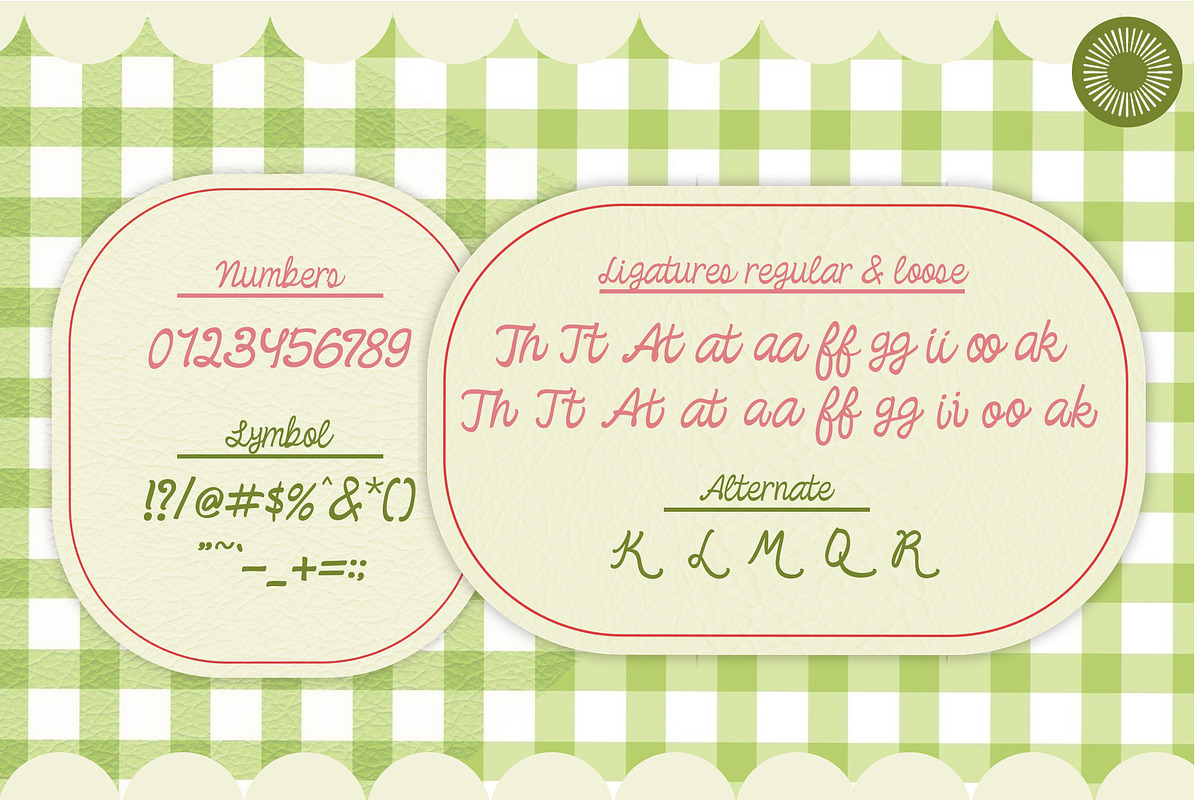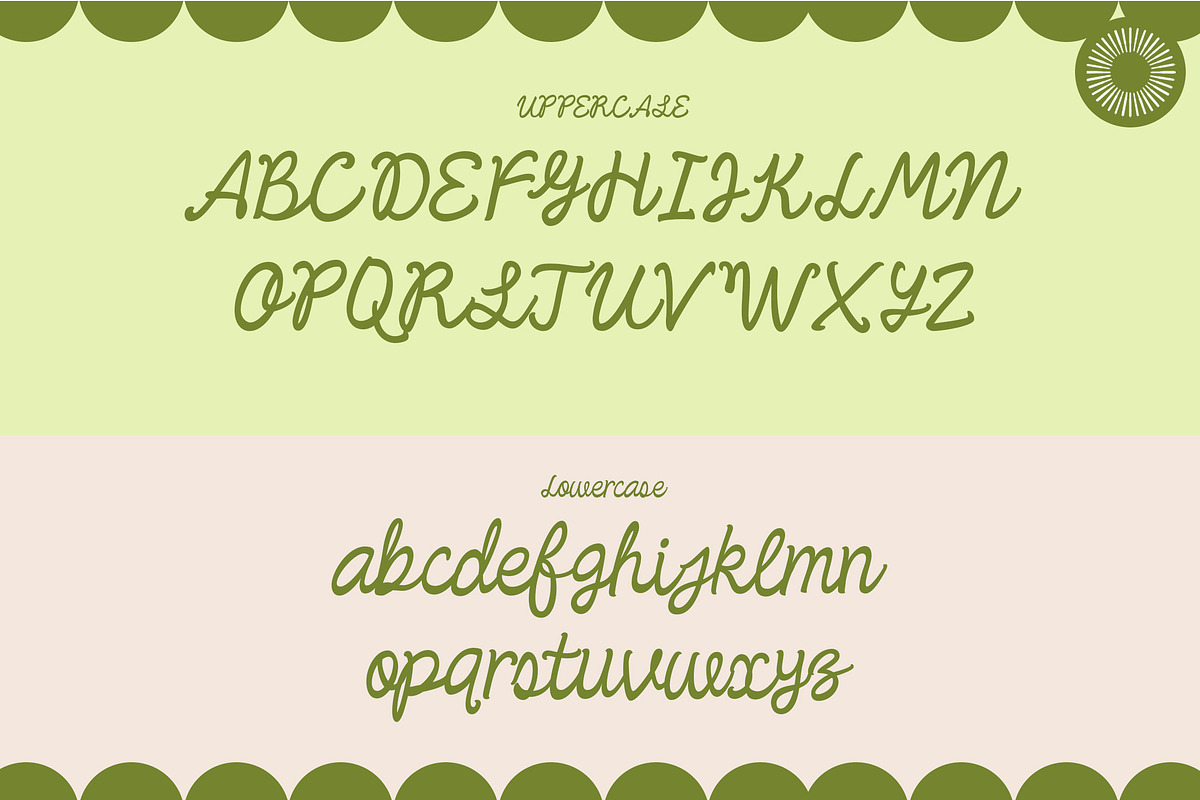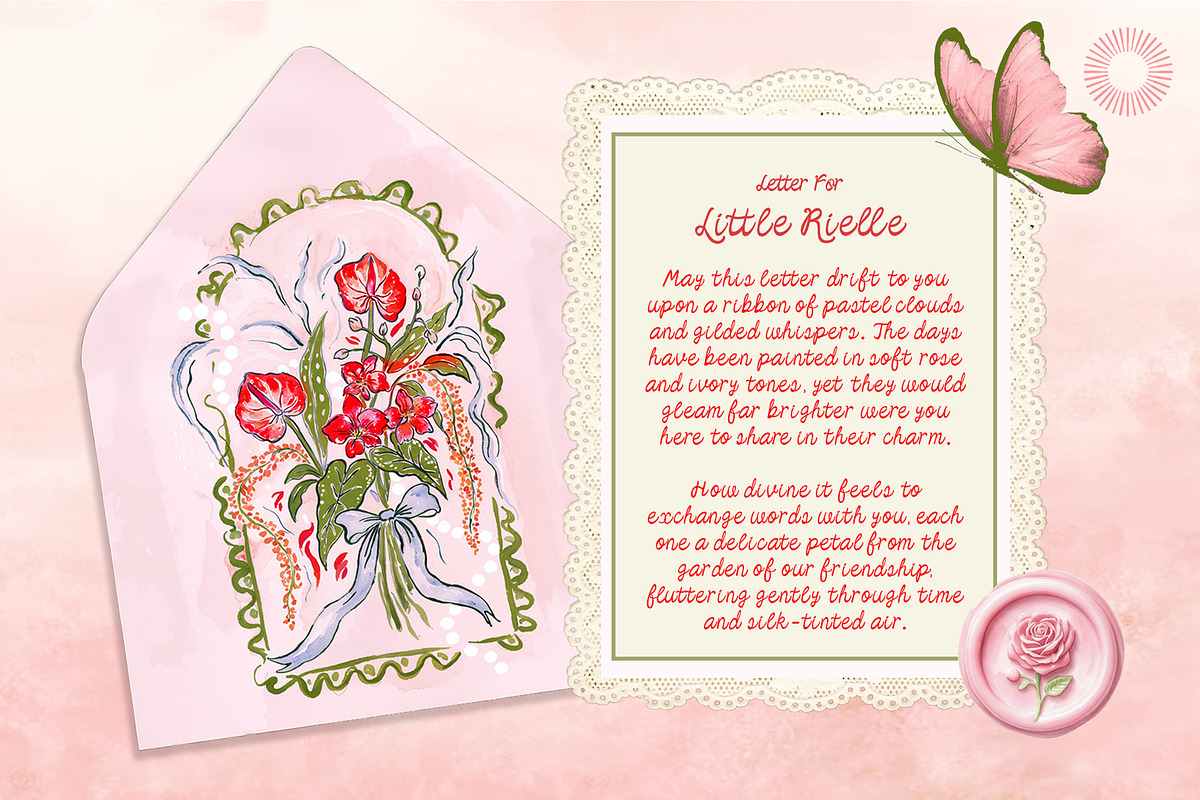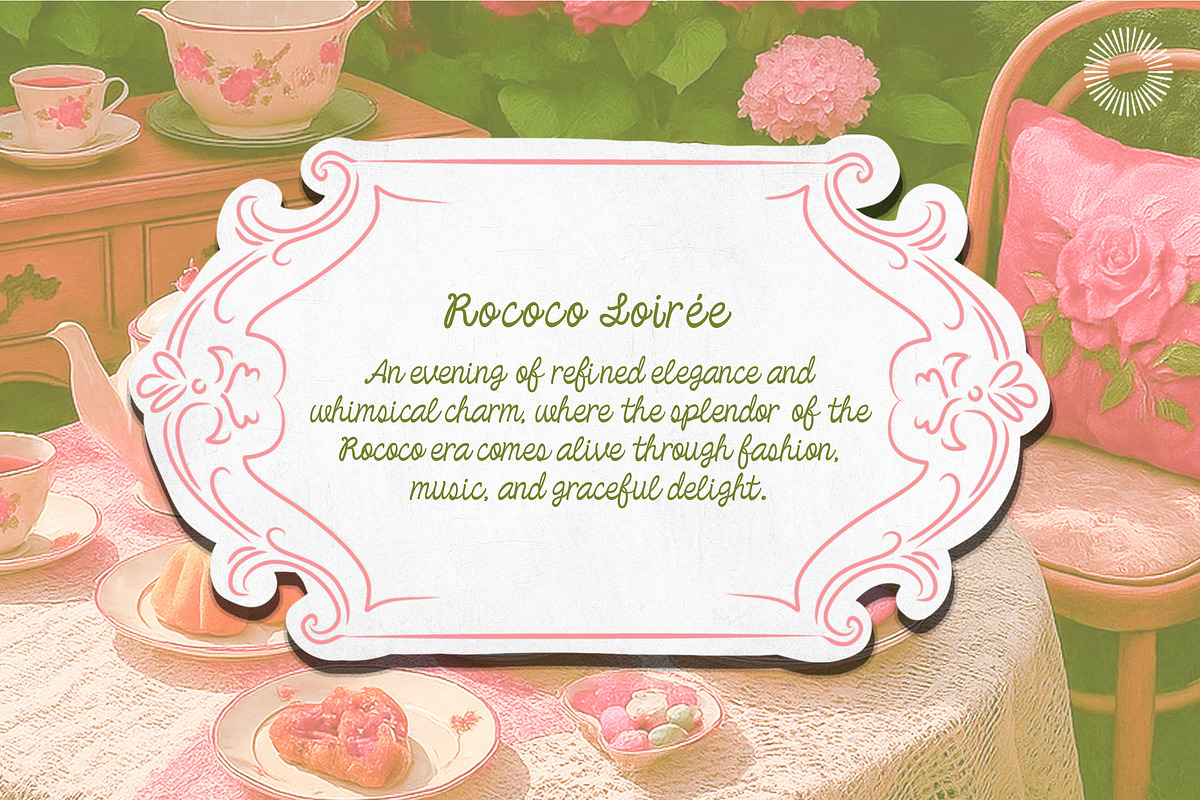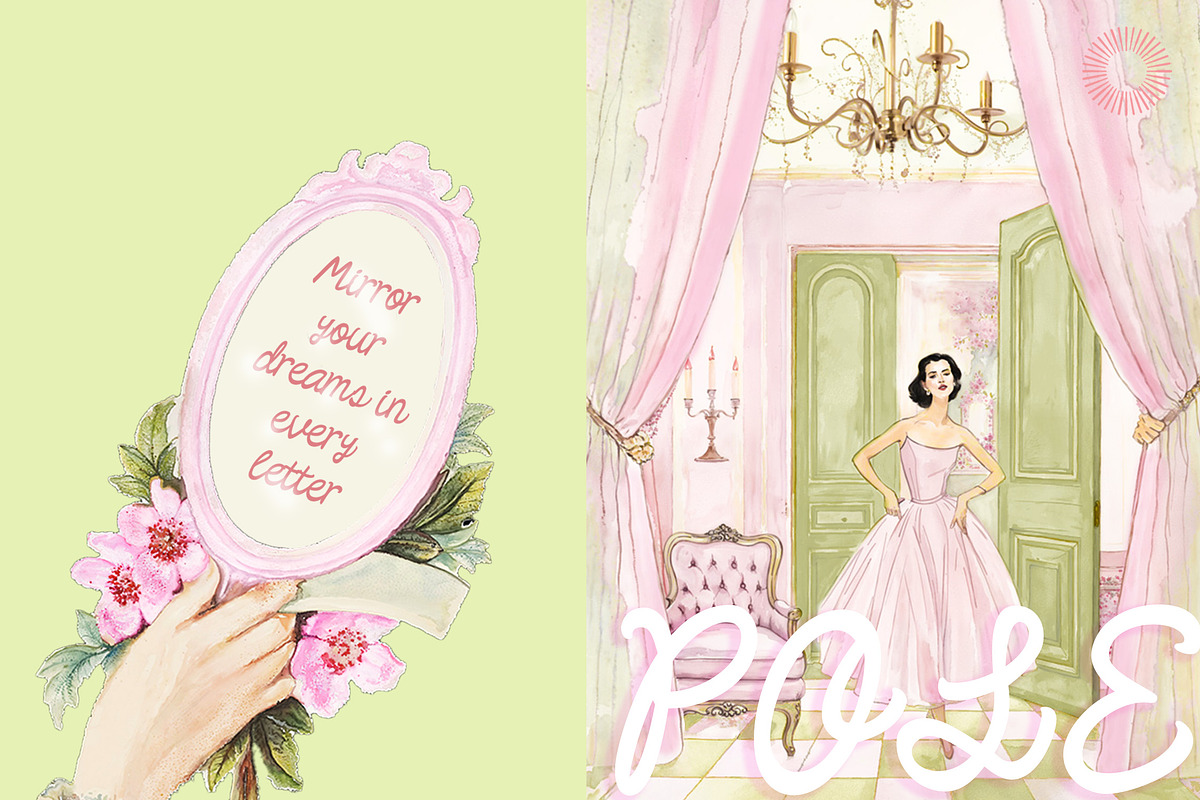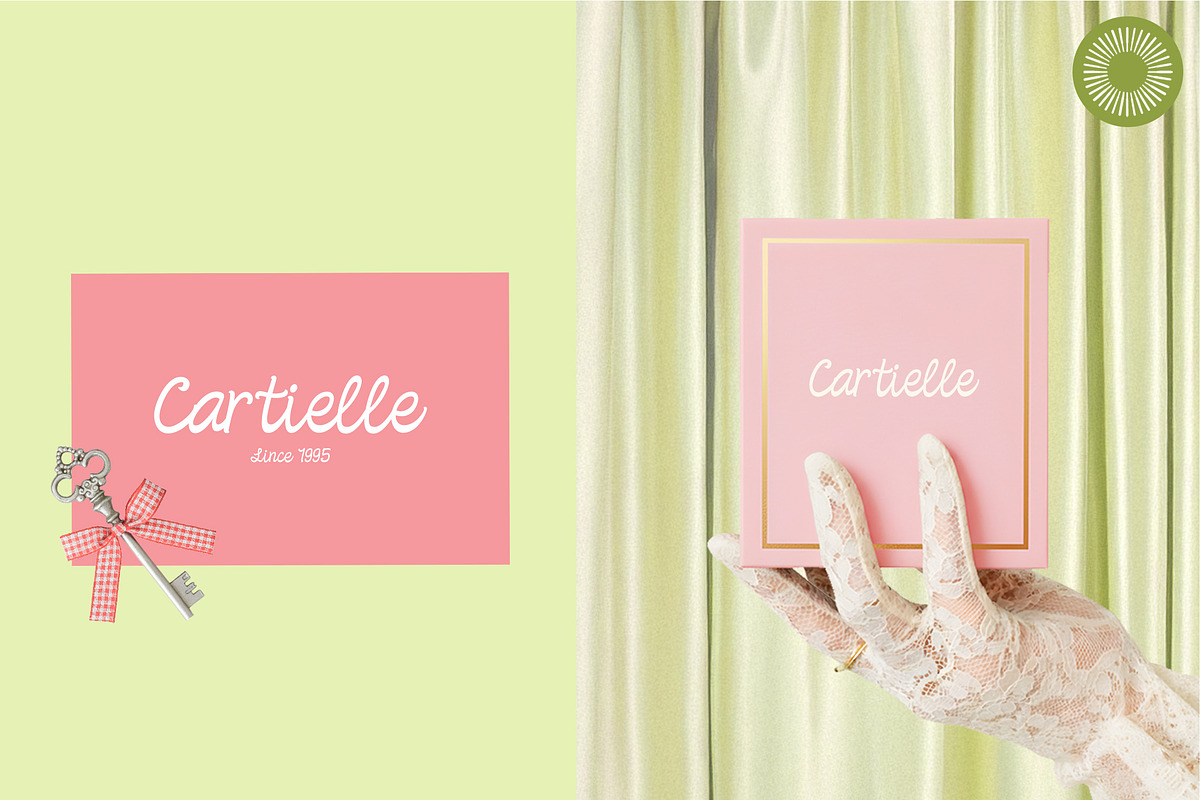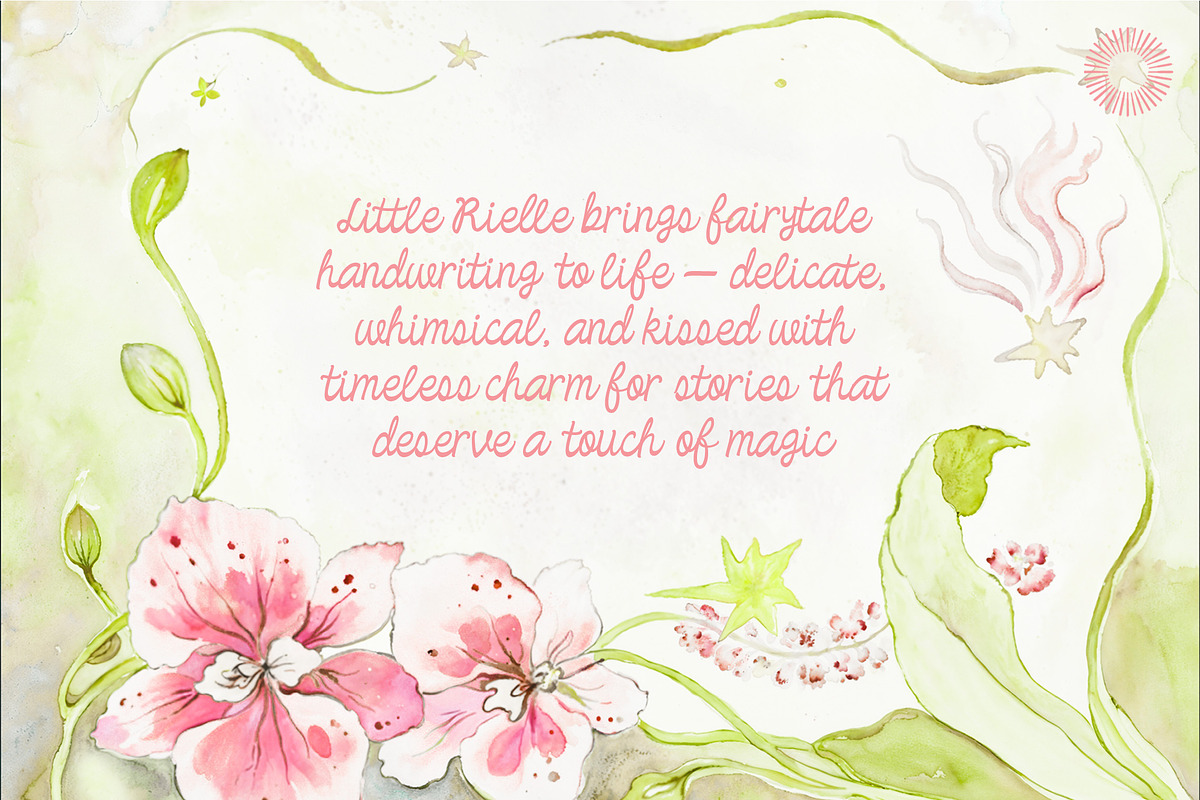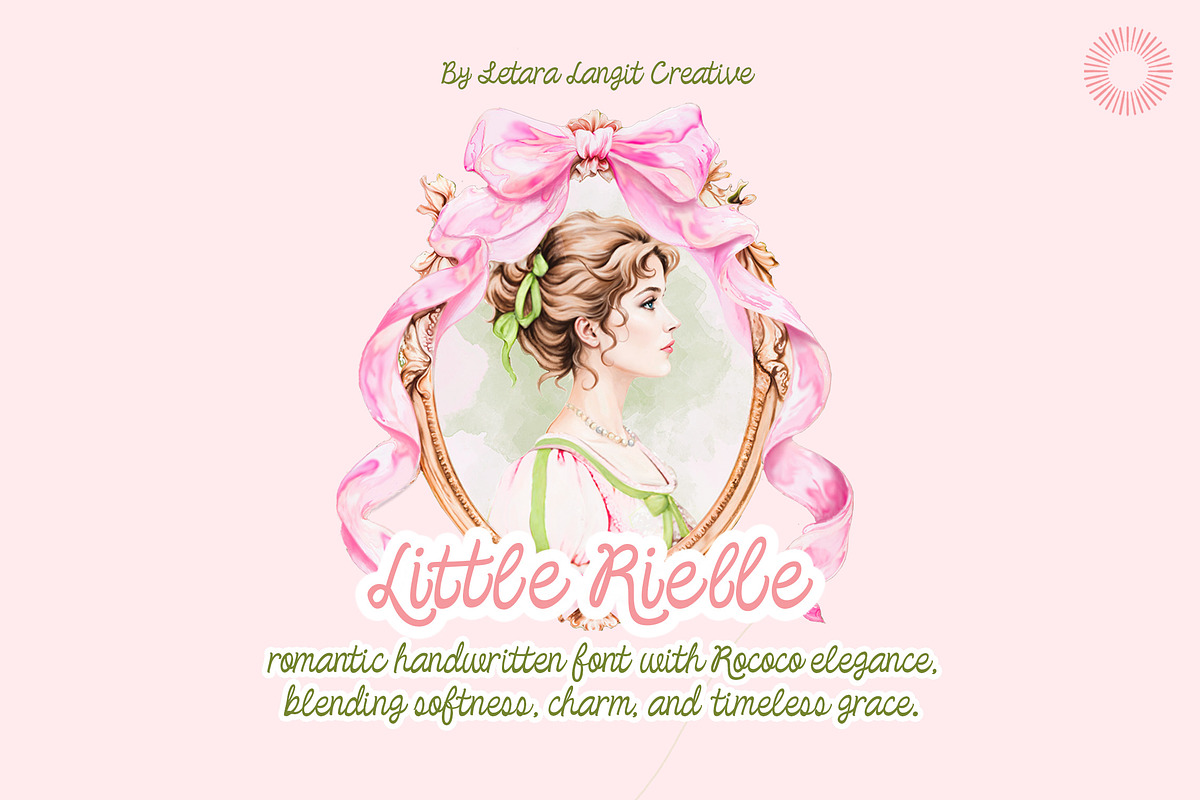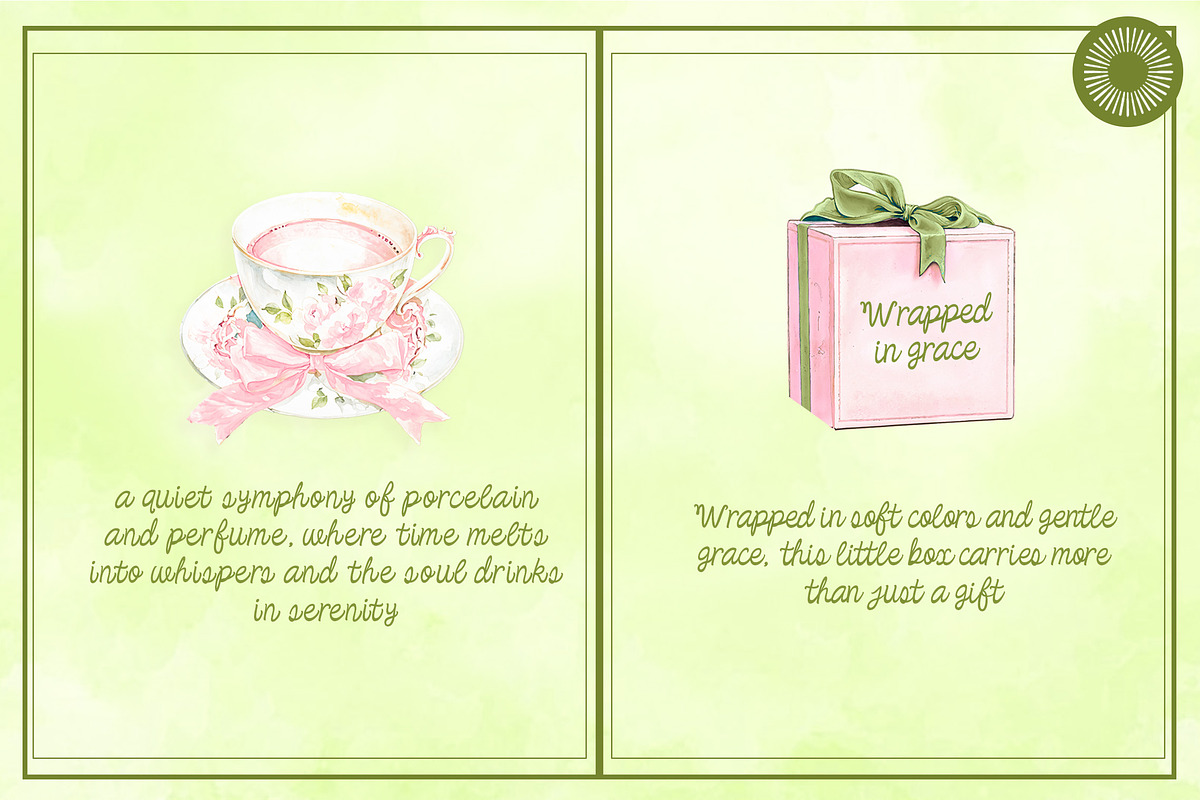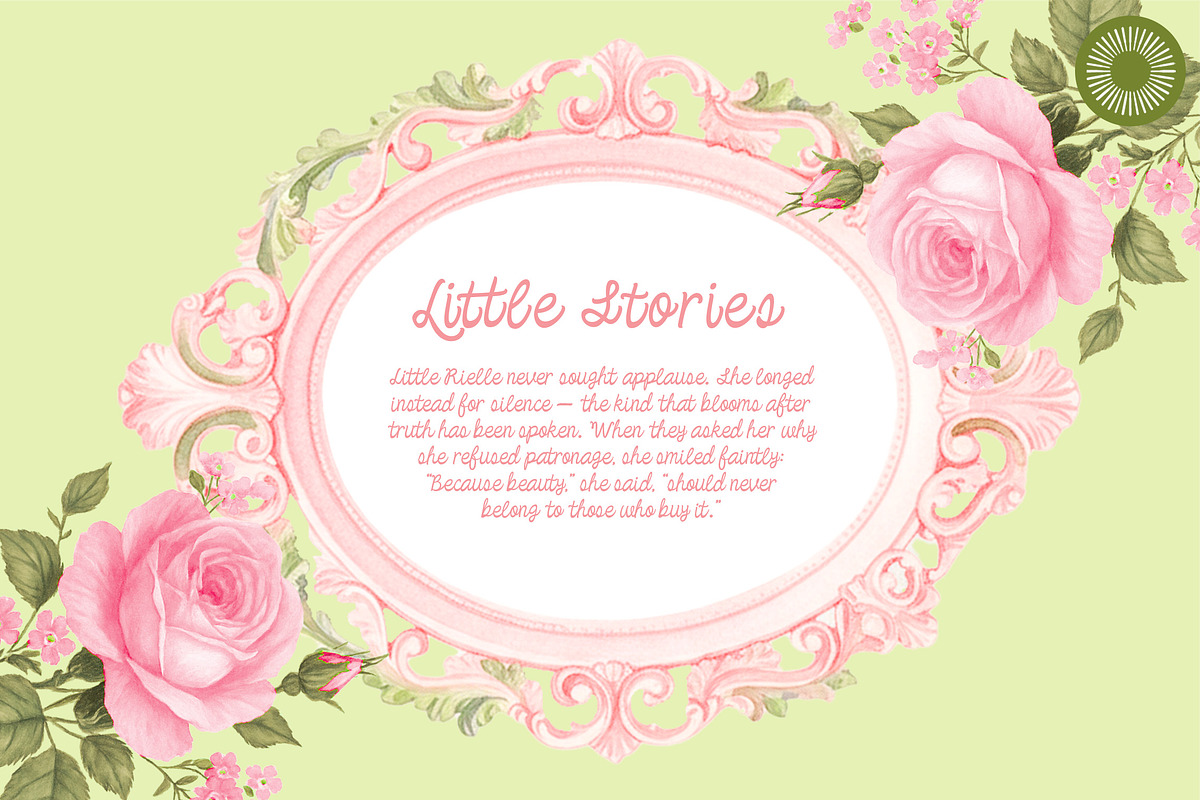
Little Rielle| Fairytale Handwritten
Little Rielle brings a touch of fairytale magic to modern design. Inspired by delicate handwriting and Rococo charm, it dances across the page with curls and curves that feel both spontaneous and refined. Its hand-drawn character adds warmth and authenticity, making it ideal for packaging, quotes, and creative branding that tell stories with heart. With a touch of vintage sophistication, Little Rielle brings a painterly softness that feels both nostalgic and fresh, a perfect balance between artistry and emotion.